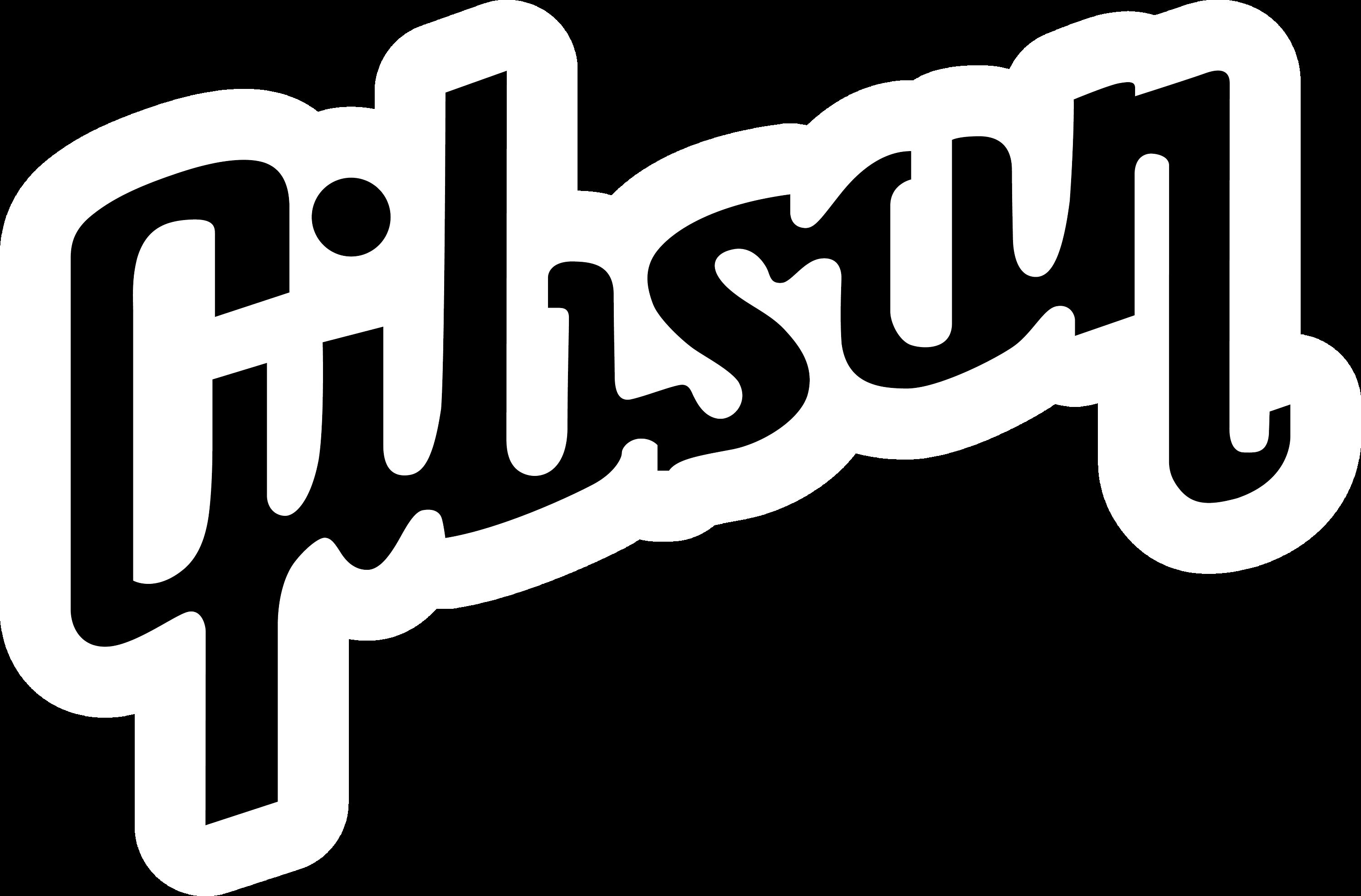
Gibson Guitar Font
Gibson Guitars Logo Font
Learn about the distinctive typeface that is synonymous with the iconic gibson brand and its guitars. I am making a 335 copy, and want to write my own name. Closest font is gibson headstock, in the link just above your post. Does anyone know of a font that looks as the gibson headstock logo. Click to find the best 25.
Gibson Guitars Logo Font
Gibson Guitars Logo Font Name That Font
gibson font? forum
Gibson Guitar font
Gibson Guitar Font Strumming Up Creative Typography
Does anyone know of a font that looks as the gibson headstock logo. Learn about the distinctive typeface that is synonymous with the iconic gibson brand and its guitars. I am making a 335 copy, and want to write my own name. Closest font is gibson headstock, in the link just above your post. Click to find the best 25.
Title The Gibson Font A Classic Typeface For Timeless Designs
Does anyone know of a font that looks as the gibson headstock logo. Every font is free to download! Gibson sans serif font is a contemporary sans serif font family designed with strong, sharp and dynamic. Learn about the distinctive typeface that is synonymous with the iconic gibson brand and its guitars. On the page, there's a purple button which.
Gibson Font Free Download
Closest font is gibson headstock, in the link just above your post. Gibson sans serif font is a contemporary sans serif font family designed with strong, sharp and dynamic. Every font is free to download! Learn about the distinctive typeface that is synonymous with the iconic gibson brand and its guitars. Does anyone know of a font that looks as.
Gibson Guitar Font Gibson Headstock Logo Stencil Mustafa Stamm
Every font is free to download! On the page, there's a purple button which says add to. Learn about the distinctive typeface that is synonymous with the iconic gibson brand and its guitars. Closest font is gibson headstock, in the link just above your post. Does anyone know of a font that looks as the gibson headstock logo.
Gibson 5 Logo PNG Transparent & SVG Vector Freebie Supply
On the page, there's a purple button which says add to. Click to find the best 25 free fonts in the guitar style. Closest font is gibson headstock, in the link just above your post. Gibson sans serif font is a contemporary sans serif font family designed with strong, sharp and dynamic. I am making a 335 copy, and want.
On The Page, There's A Purple Button Which Says Add To.
Every font is free to download! Click to find the best 25 free fonts in the guitar style. Gibson sans serif font is a contemporary sans serif font family designed with strong, sharp and dynamic. I am making a 335 copy, and want to write my own name.
Does Anyone Know Of A Font That Looks As The Gibson Headstock Logo.
Learn about the distinctive typeface that is synonymous with the iconic gibson brand and its guitars. Closest font is gibson headstock, in the link just above your post.